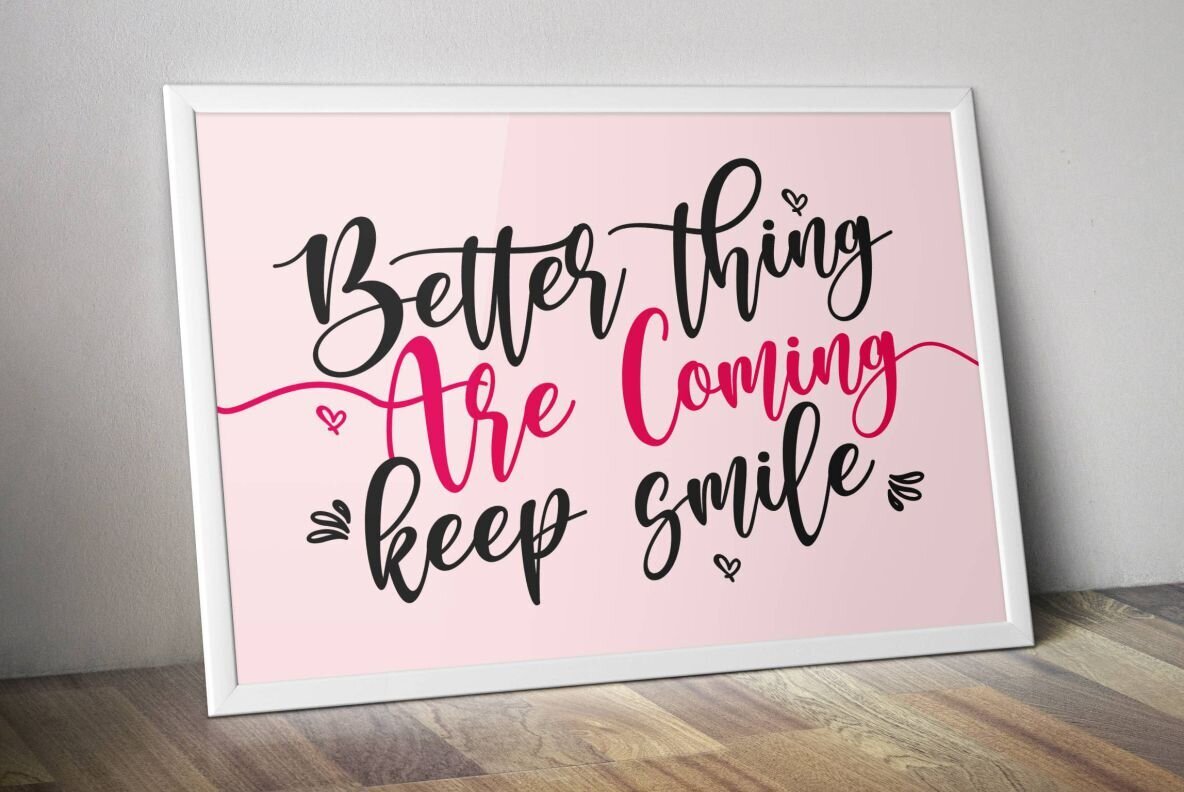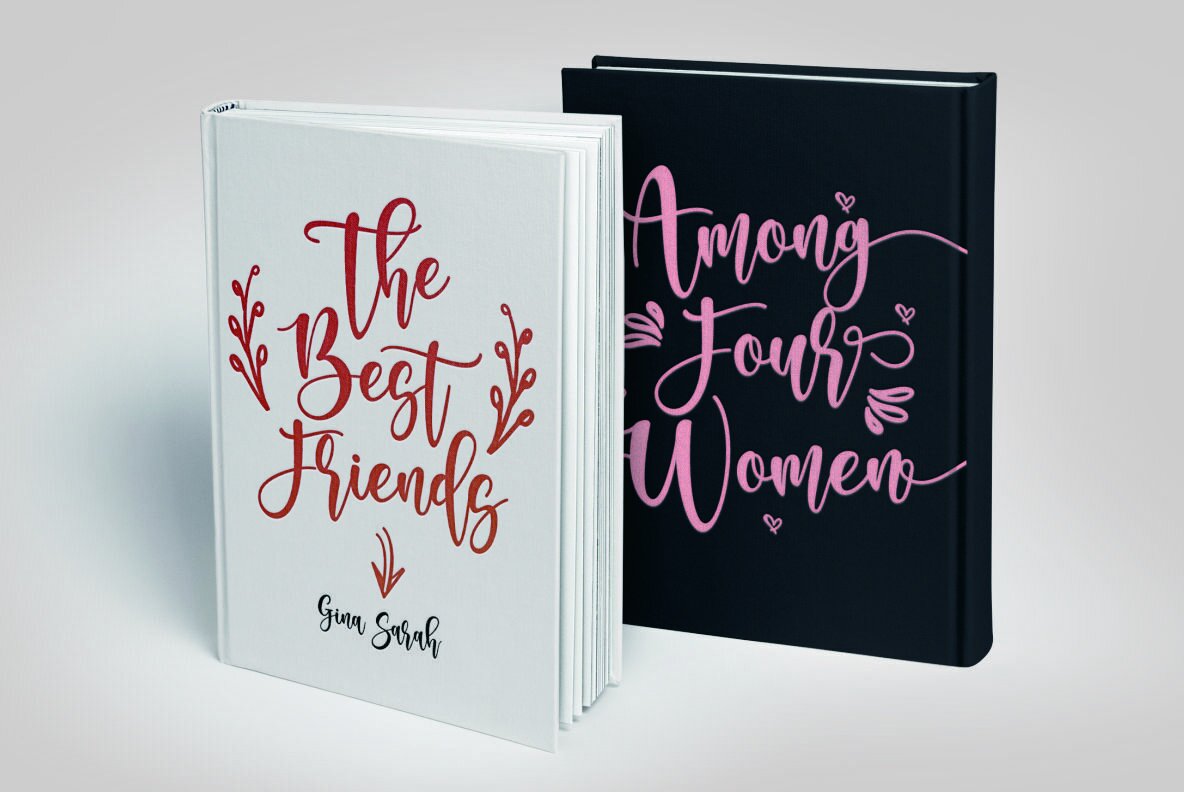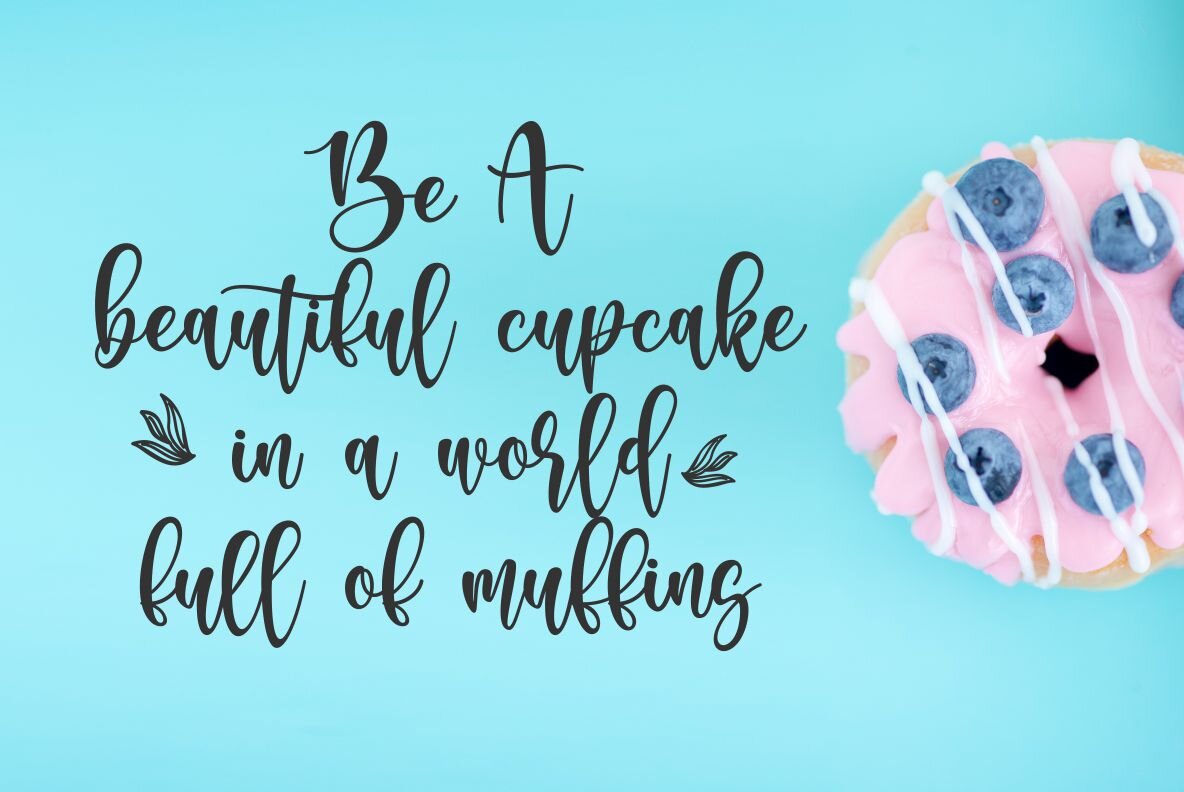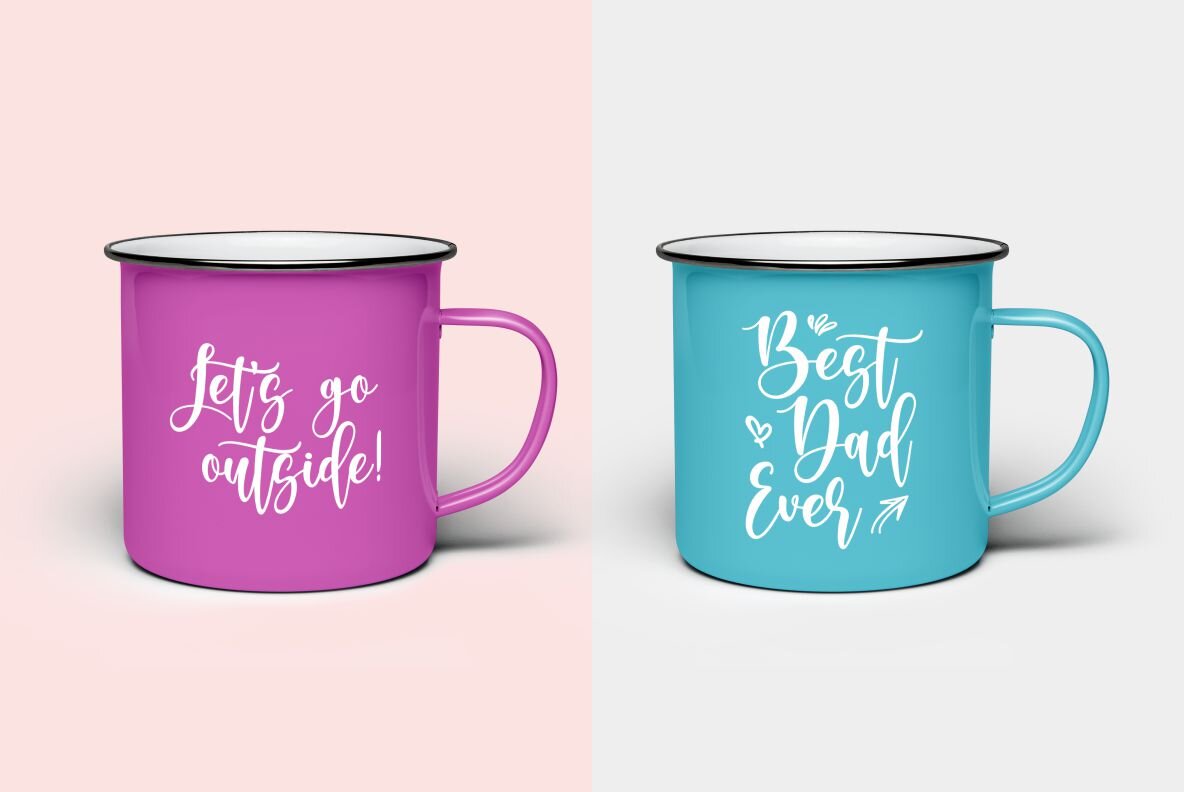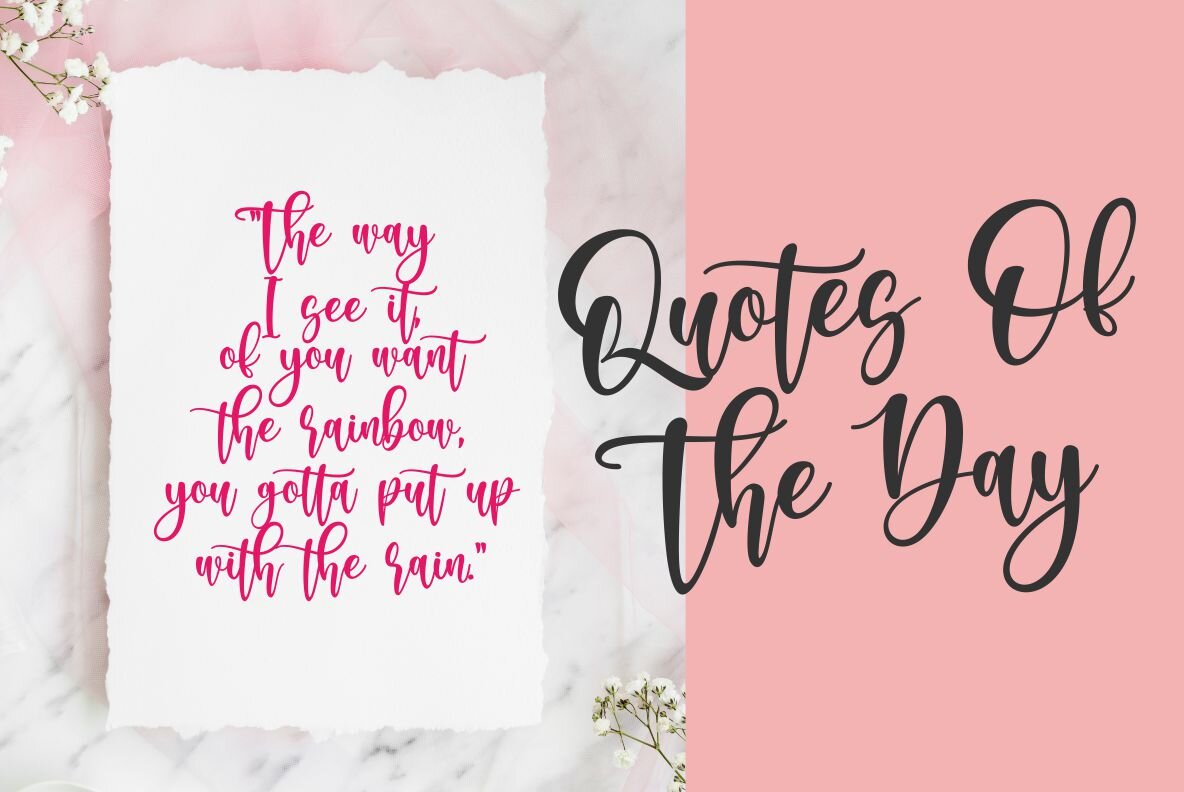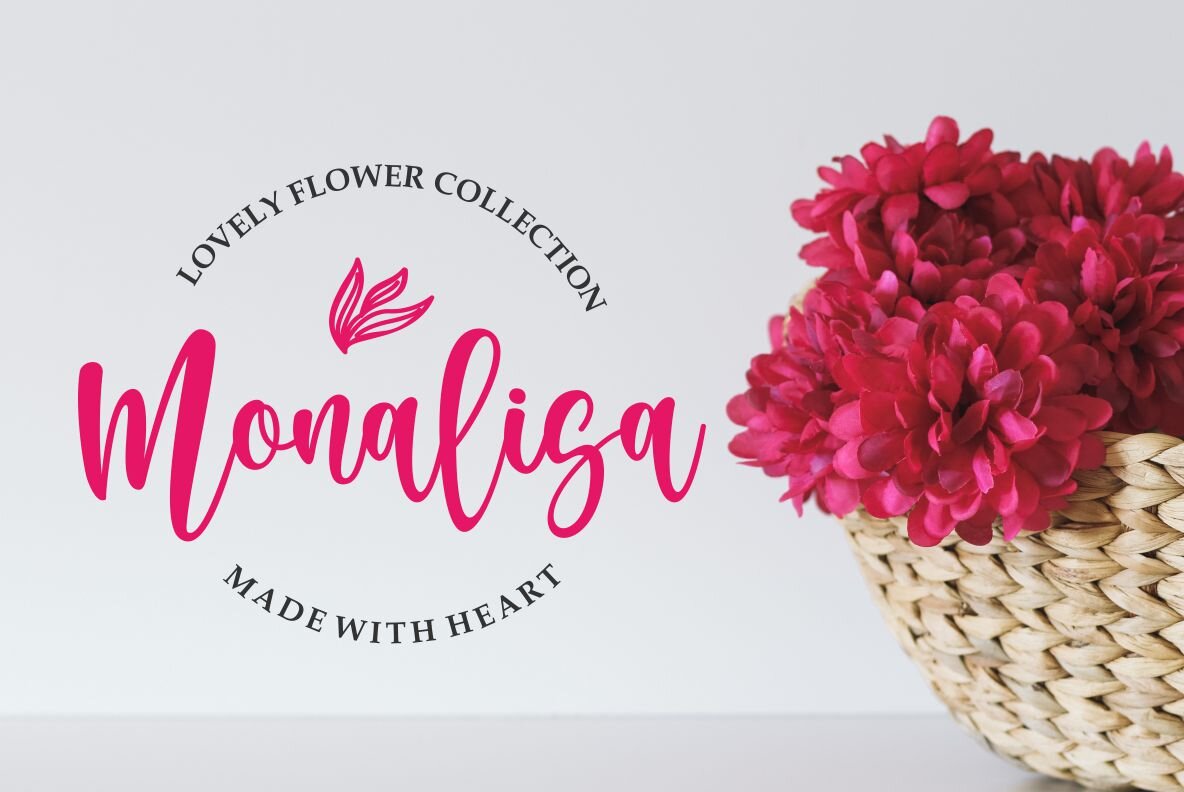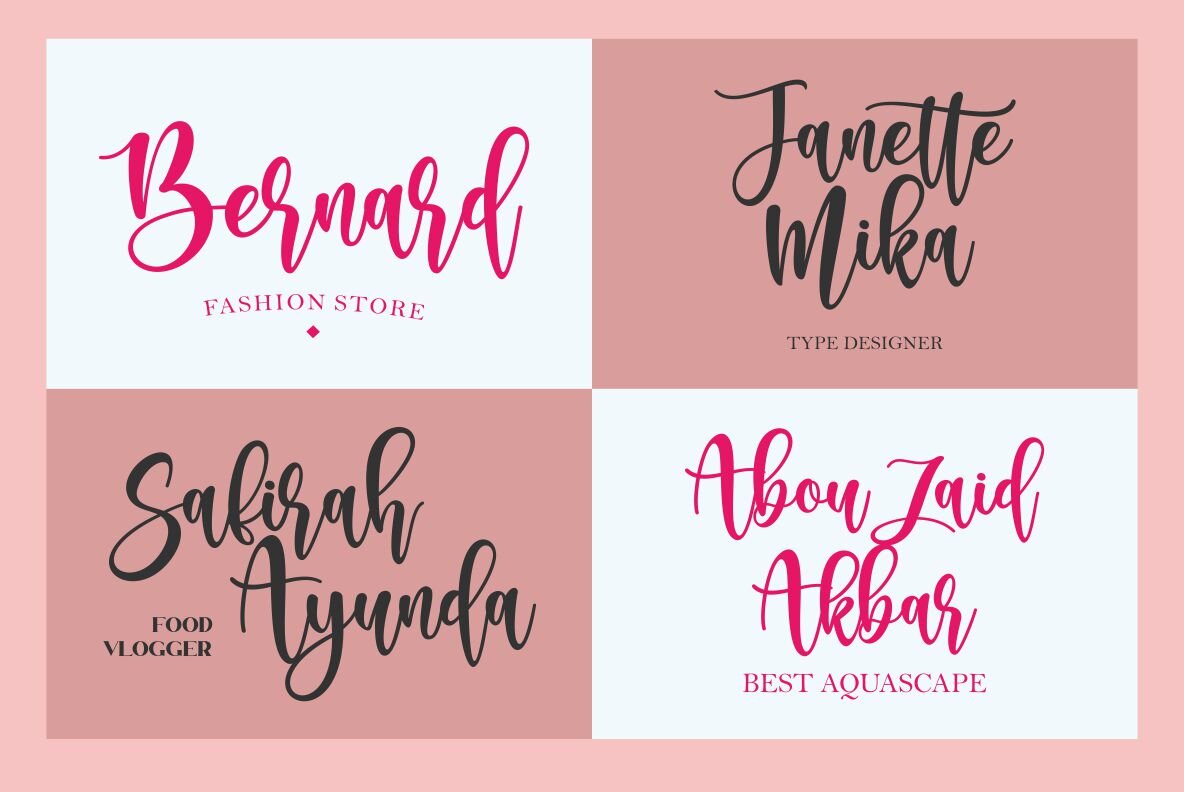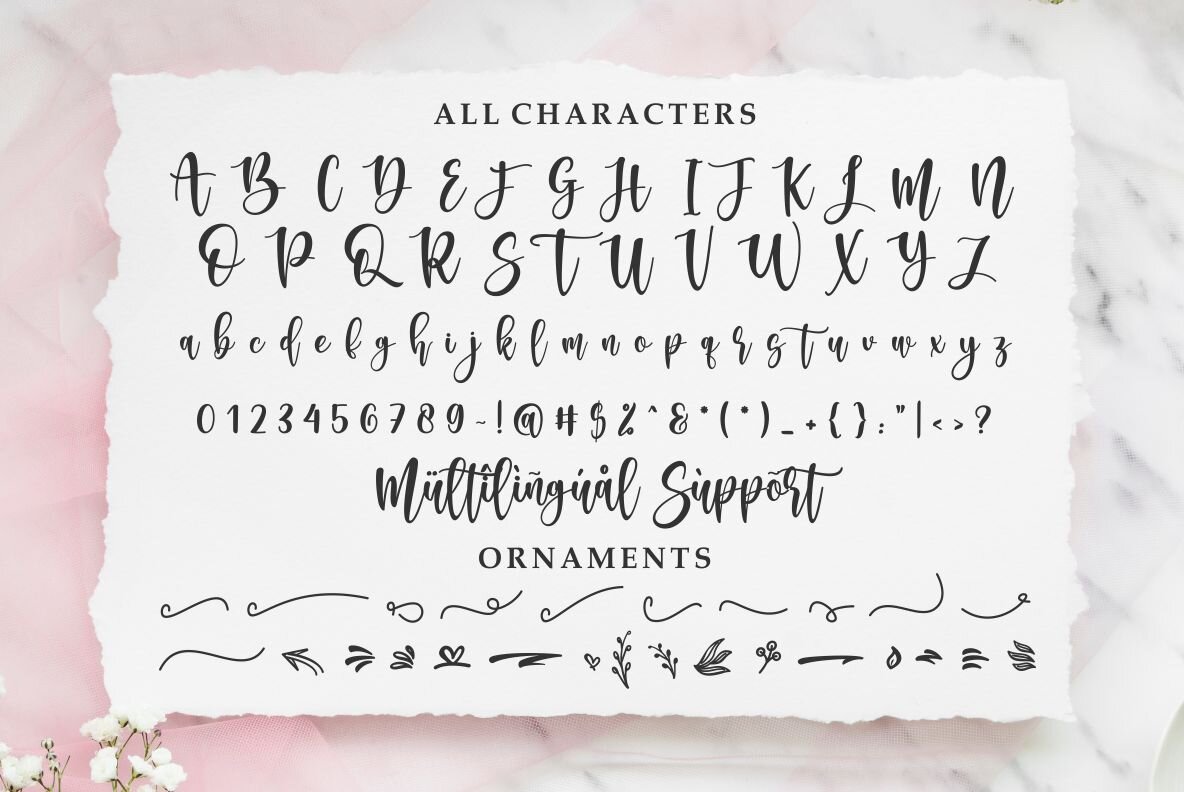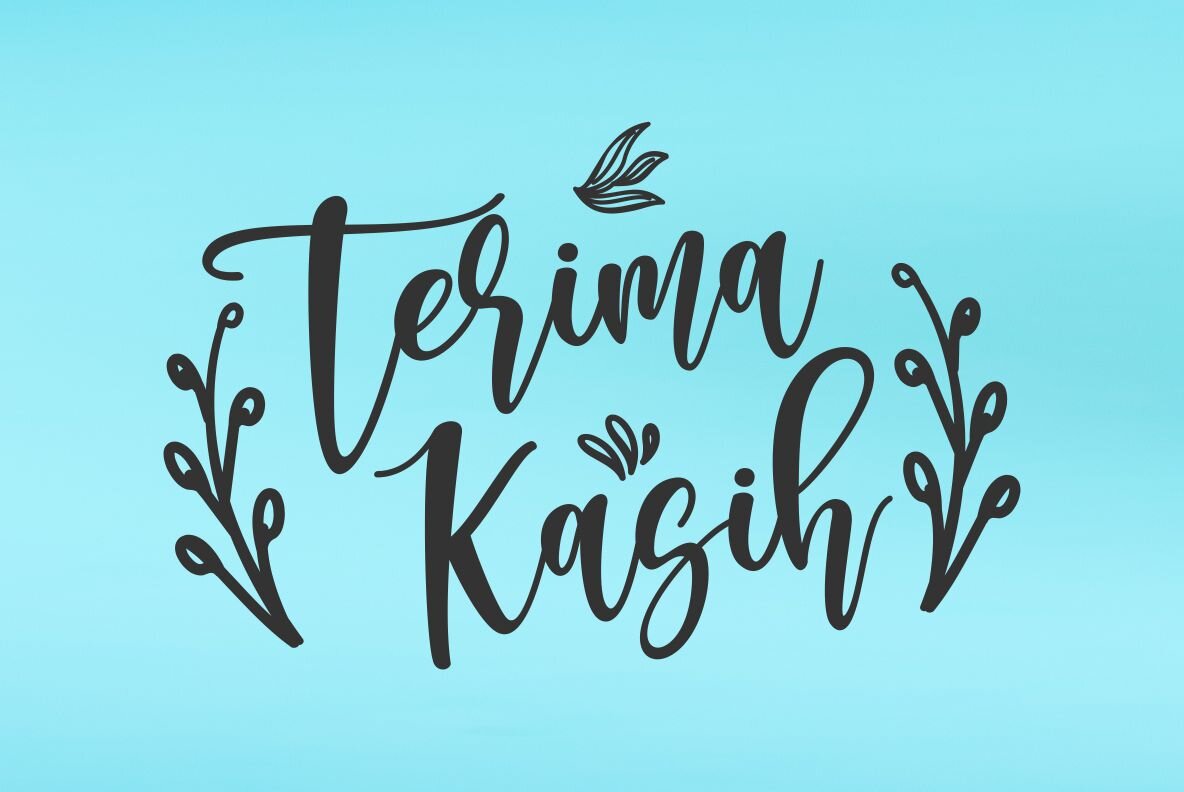
Southmore Font
Southmore by Ergibi Studio offers a charming blend of contemporary elegance in a script font. Its versatility shines through with support for lowercase, uppercase, symbols, and multiple languages. This makes it a splendid addition for various design projects.Southmore: Lovely Modern Script
Ideal for those with a penchant for expressive typography, Southmore stands out in applications from product packaging to bespoke events.